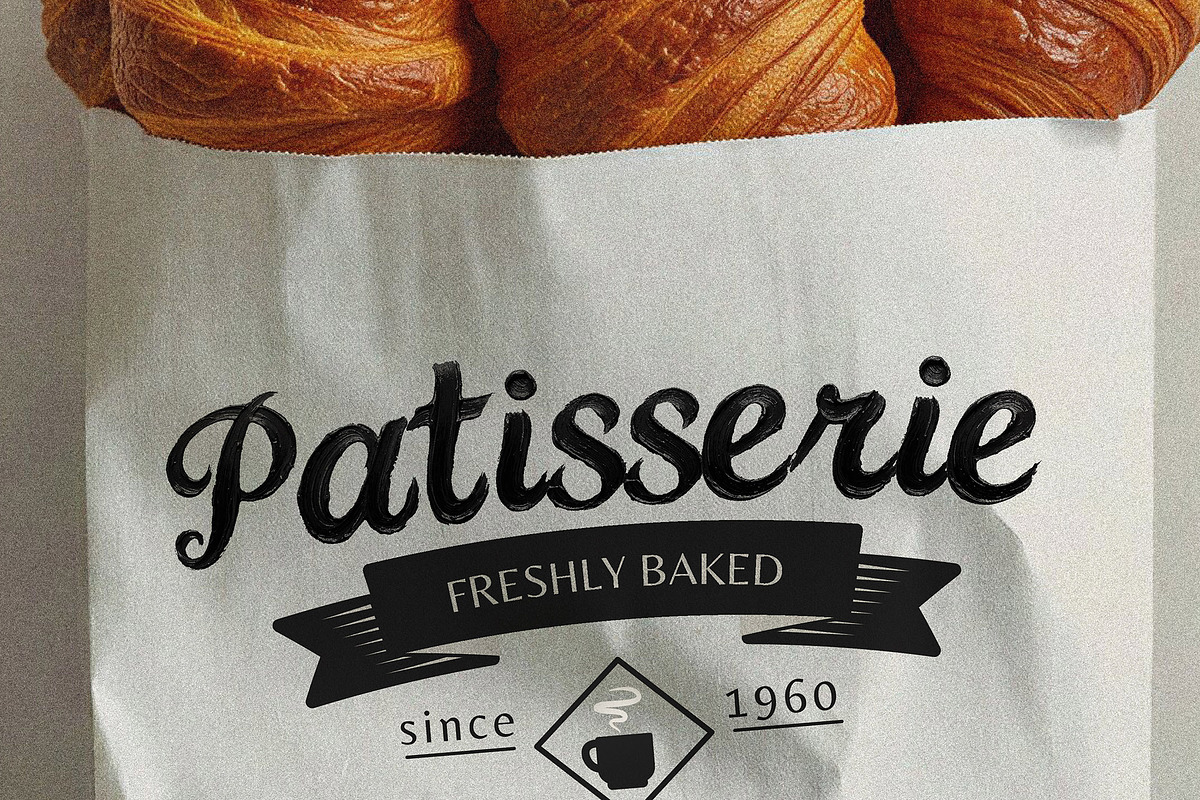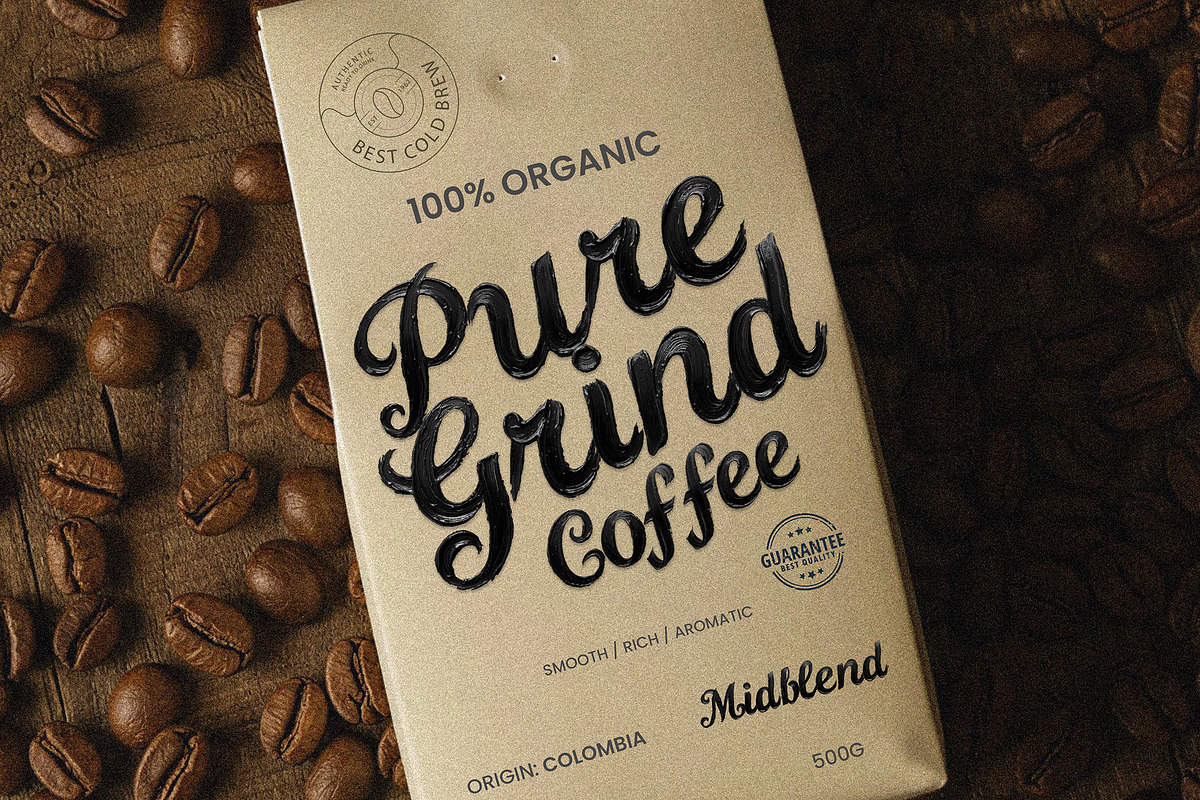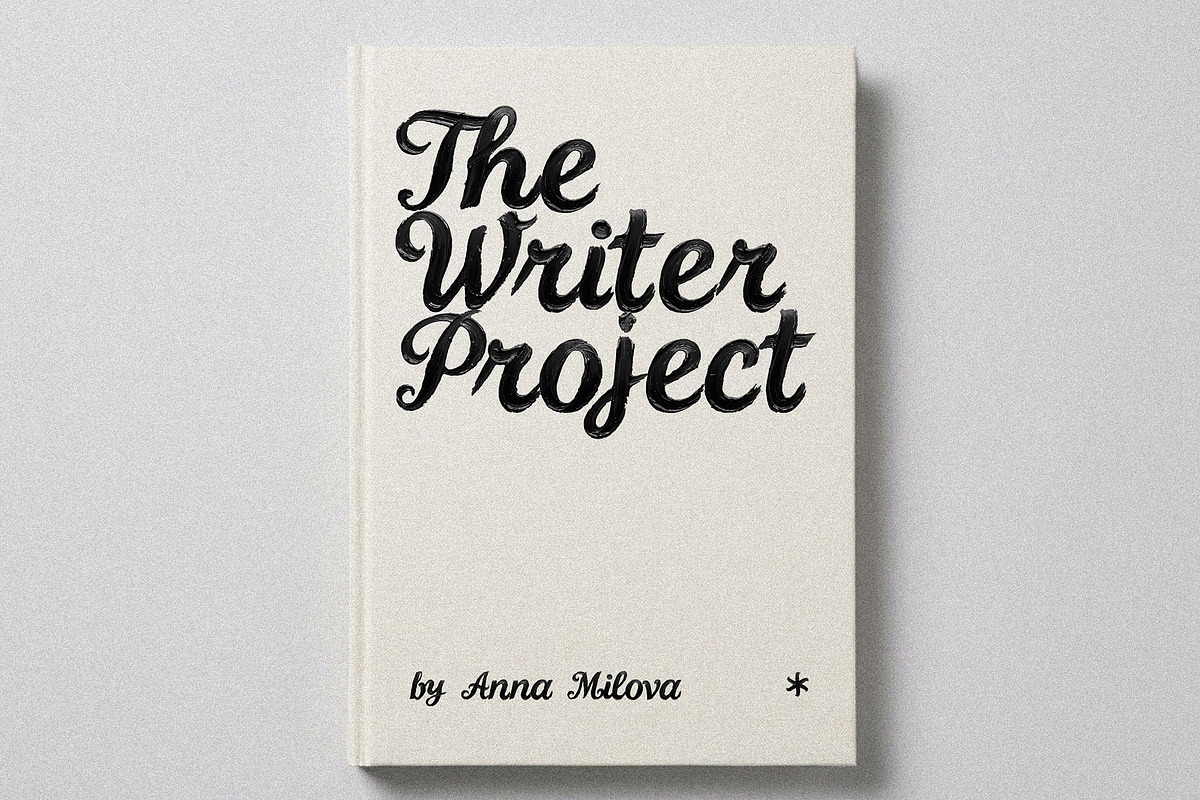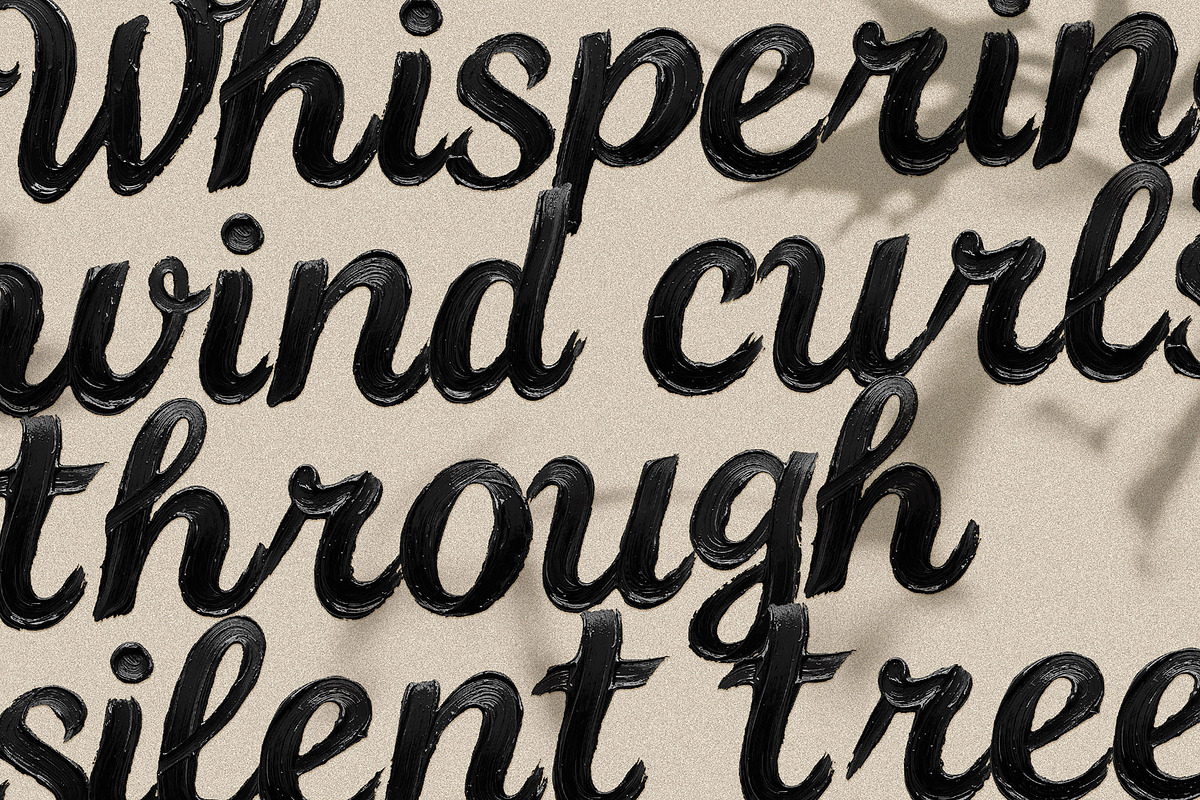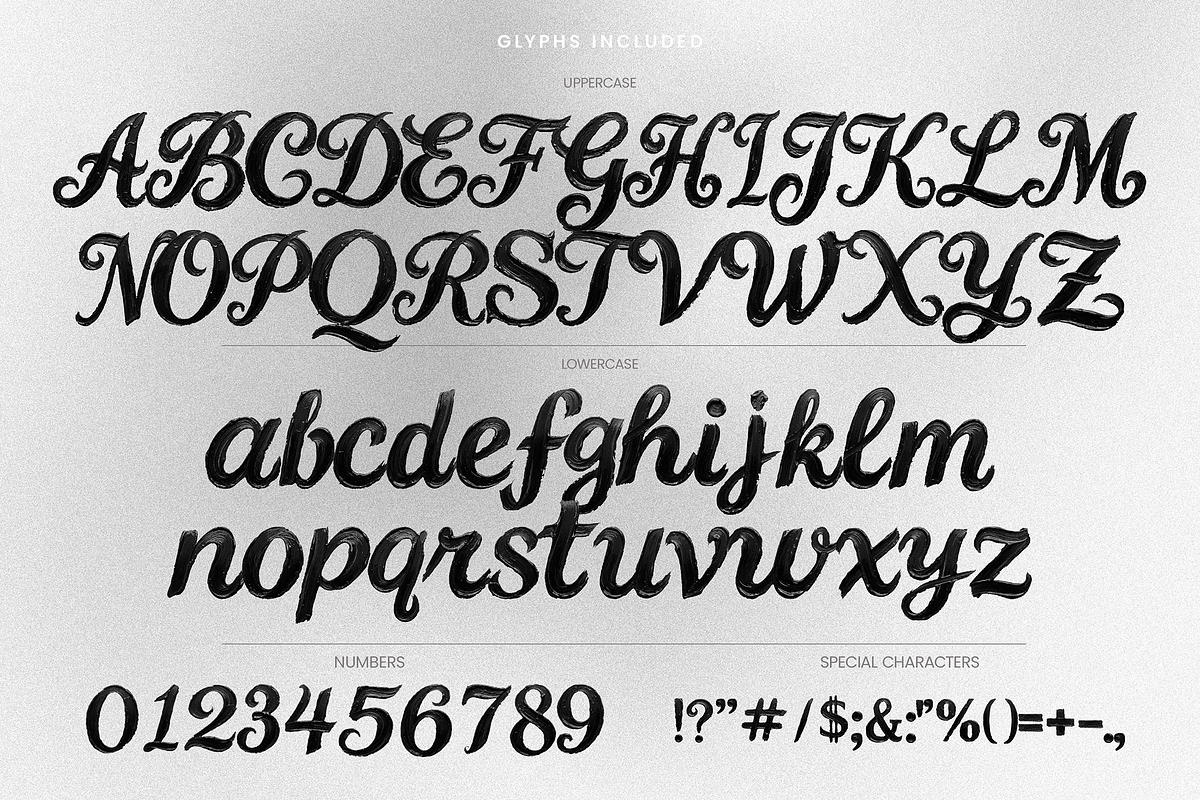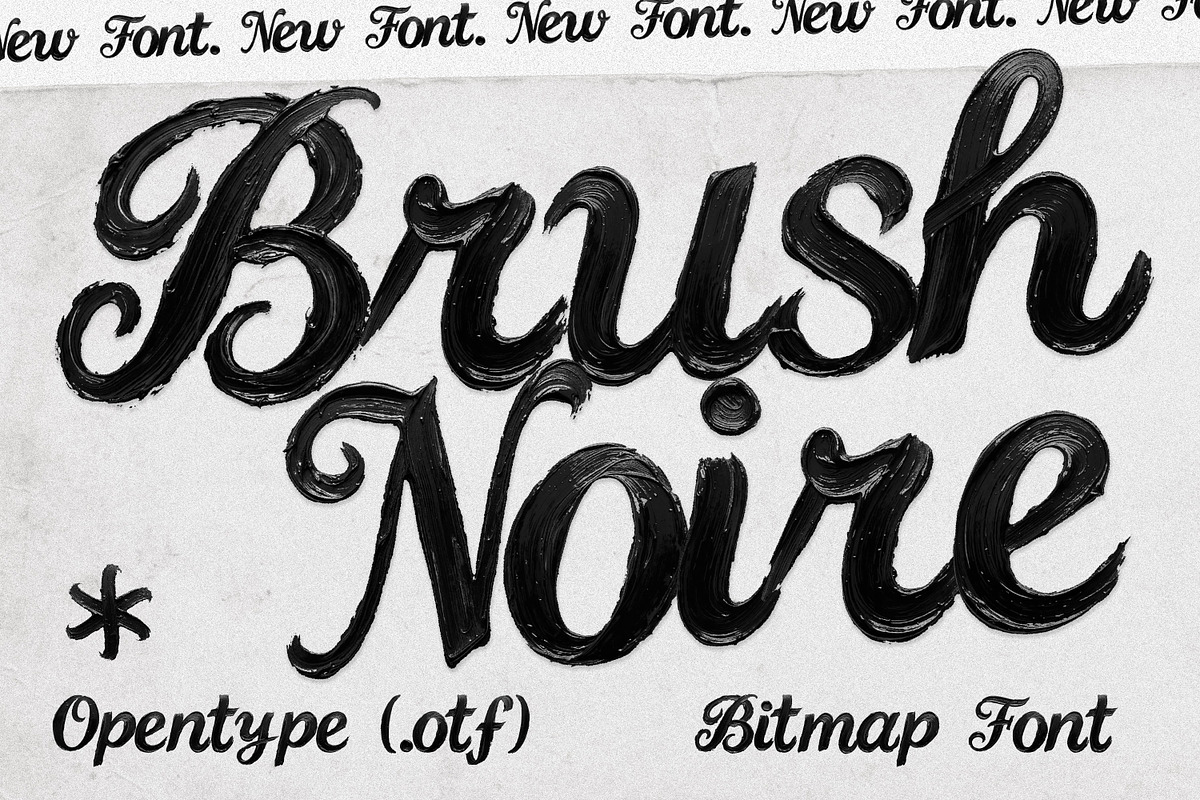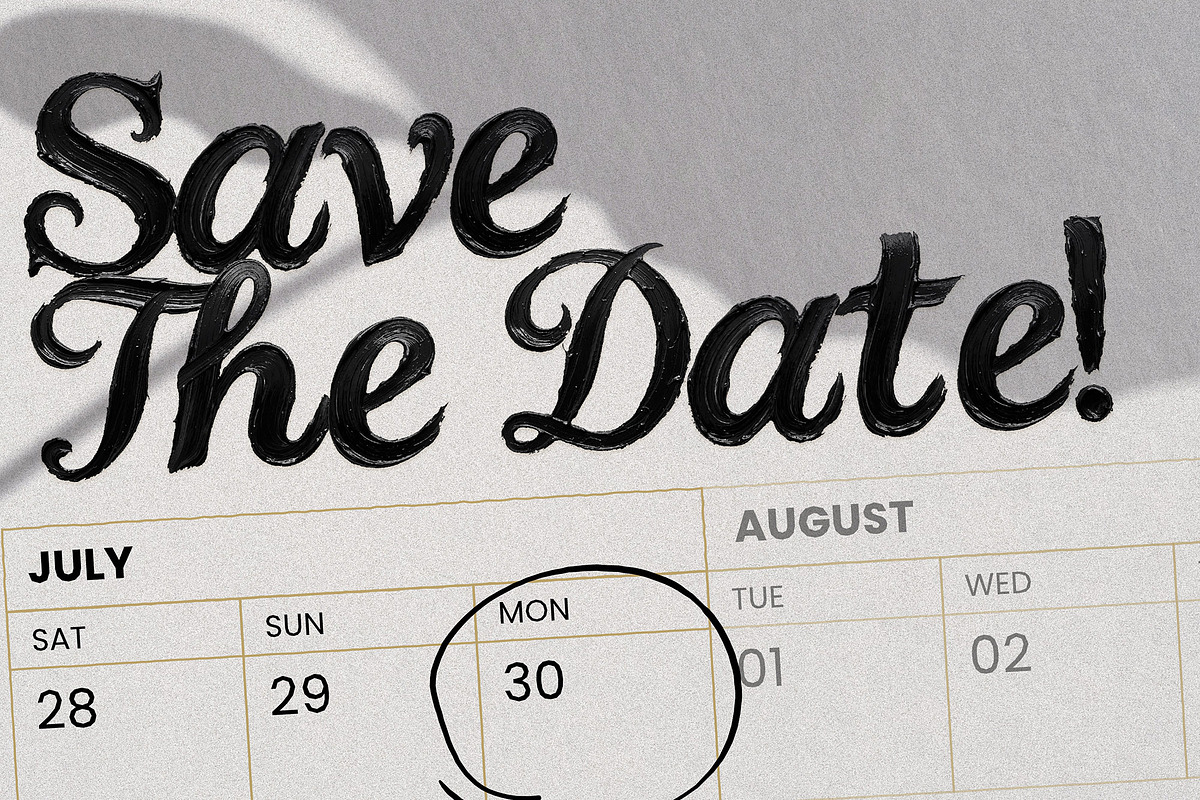
Brush Noire - Textured Hand Painted
Don’t just type it. Paint it.
Brush Noire is a hyper-realistic brush script that captures the texture of wet oil paint on canvas. Brush Noire brings a hand-crafted, artisanal quality to digital design. It provides the "wet ink" look instantly - what you see is what you get!
- Branding Projects
- Edgy streetwear branding
- Album artwork
- Event flyers
- Handcrafted packaging designs